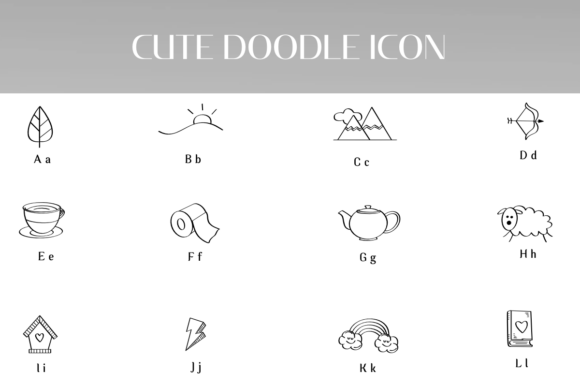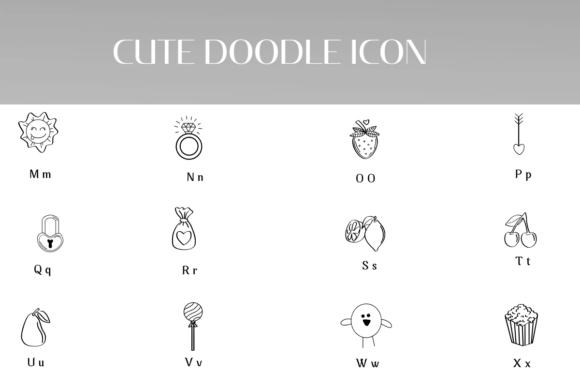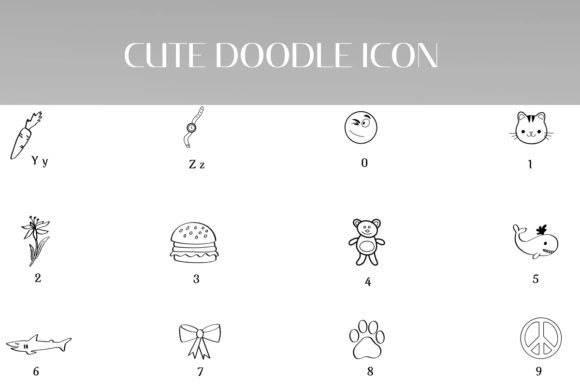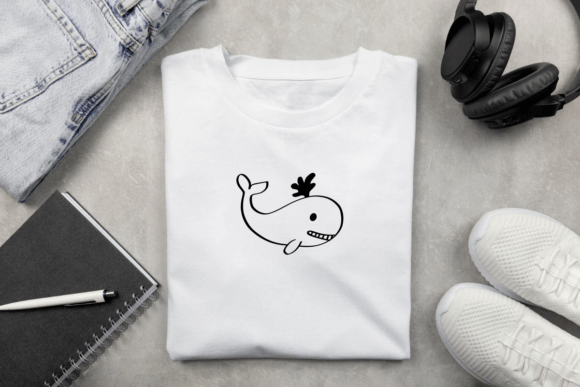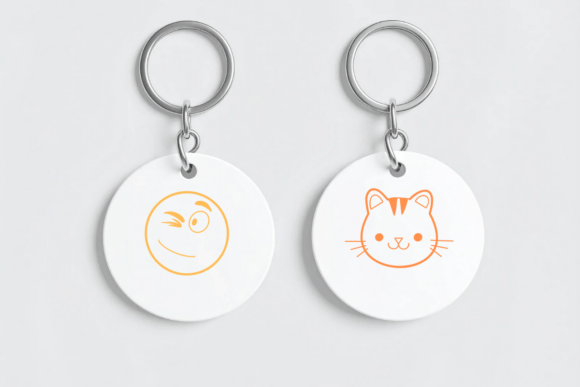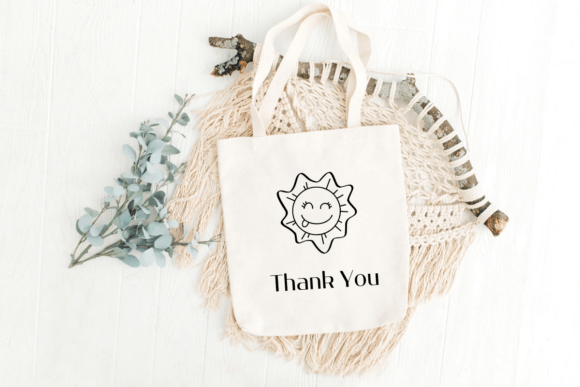
Cute Doodle Icons Font: A Whimsical Toolkit for Creative Projects
Are you a designer, crafter, or artist looking for a unique and versatile font to elevate your creative projects? Look no further than the Cute Doodle Icons Font, a charming and diverse dingbats font that offers a comprehensive collection of hand-drawn illustrations. This artisanal font is perfect for adding a touch of whimsy and personality to your designs, making it an ideal asset for artisanal product branding, children’s book illustrations, personalized stationery, and creative journal layouts.
A Diverse Collection of Hand-Drawn Illustrations
The Cute Doodle Icons Font features a vast array of motifs, including friendly animals, nature elements, and everyday objects. You’ll find adorable illustrations of cats, bears, sheep, and other animals, as well as beautiful depictions of the sun, rainbow, mountains, and more. The font also includes a range of everyday objects, such as tea cups, strawberries, birdhouses, and flowers. With so many illustrations to choose from, you’re sure to find the perfect icon to match your creative vision.
A Charming, Sketchy Quality
One of the standout features of the Cute Doodle Icons Font is its charming, sketchy quality. Each illustration is carefully hand-drawn with a consistent line weight, giving them an authentic “hand-doodled” feel. This unique quality adds a touch of personality and whimsy to your designs, making them stand out from the crowd. Whether you’re creating a children’s book, a personalized journal, or a branded product, this font is sure to add a delightful touch.
Ideal for Artisanal Product Branding
For artisans and makers, the Cute Doodle Icons Font is an ideal asset for branding and packaging. The font’s charming illustrations can be used to create eye-catching labels, product tags, and packaging materials that reflect the personality of your brand. With its hand-drawn feel and diverse collection of motifs, this font is perfect for adding a touch of personality to your products and making them stand out in a crowded market.
Perfect for Children’s Book Illustrations
The Cute Doodle Icons Font is also a great choice for children’s book illustrations. The font’s playful and whimsical illustrations are sure to delight young readers, and can be used to create engaging and interactive stories. Whether you’re an author, illustrator, or designer, this font is a valuable resource for bringing your children’s book to life.
Great for Personalized Stationery and Journal Layouts
In addition to its use in branding and children’s book illustrations, the Cute Doodle Icons Font is also perfect for creating personalized stationery and journal layouts. The font’s charming illustrations can be used to add a touch of personality to your stationery, making it perfect for special occasions or everyday use. Similarly, the font’s diverse collection of motifs makes it ideal for creating unique and engaging journal layouts that reflect your personality and style.
Key Features of the Cute Doodle Icons Font
- Comprehensive collection of hand-drawn illustrations: The font includes a vast array of motifs, including friendly animals, nature elements, and everyday objects.
- Charming, sketchy quality: Each illustration is carefully hand-drawn with a consistent line weight, giving them an authentic “hand-doodled” feel.
- Diverse and versatile: The font can be used for a wide range of creative projects, from artisanal product branding to children’s book illustrations and personalized stationery.
The Cute Doodle Icons Font is a valuable resource for designers, crafters, and artists looking to add a touch of whimsy and personality to their creative projects. With its comprehensive collection of hand-drawn illustrations, charming sketchy quality, and diverse versatility, this font is perfect for a wide range of applications. Whether you’re creating artisanal product branding, children’s book illustrations, personalized stationery, or creative journal layouts, the Cute Doodle Icons Font is sure to be a valuable asset in your creative toolkit.